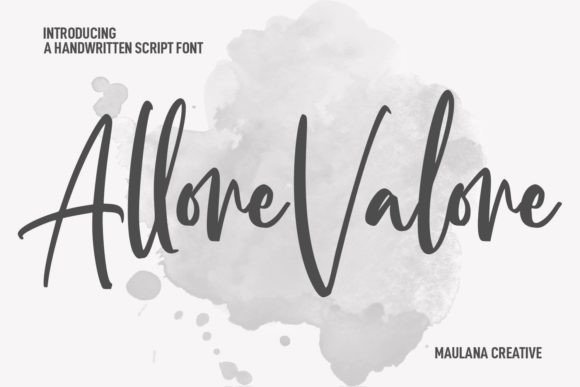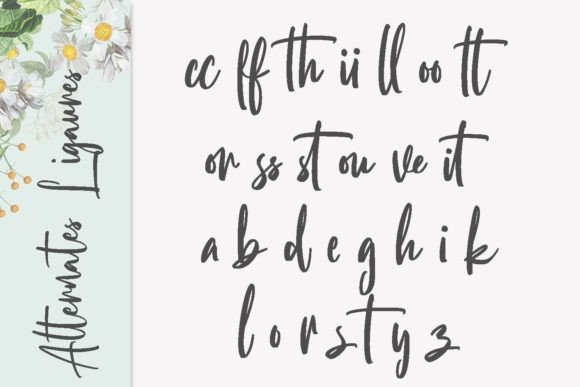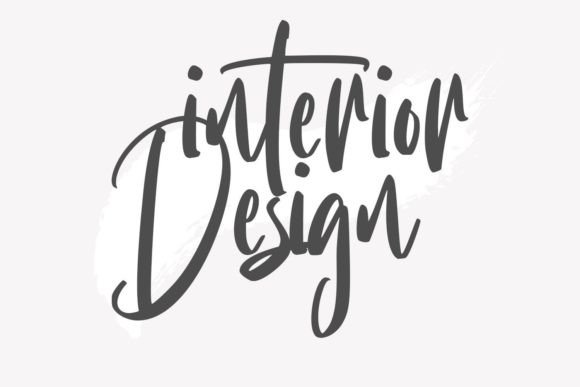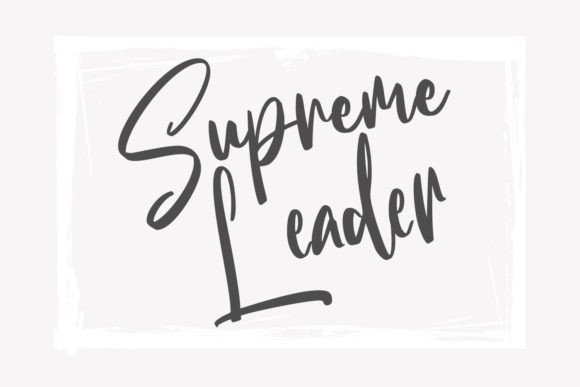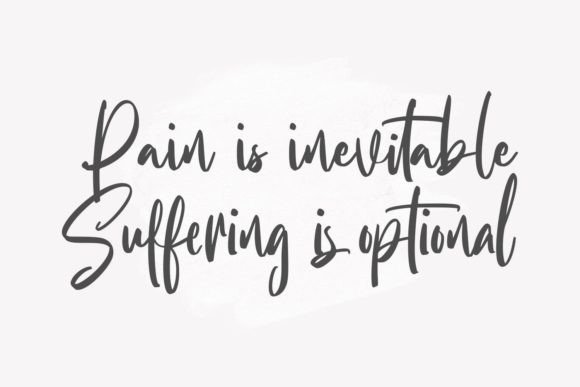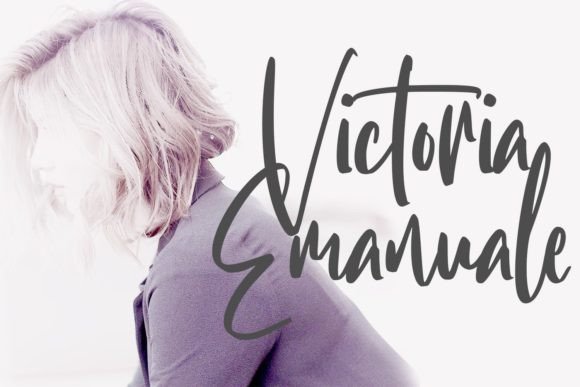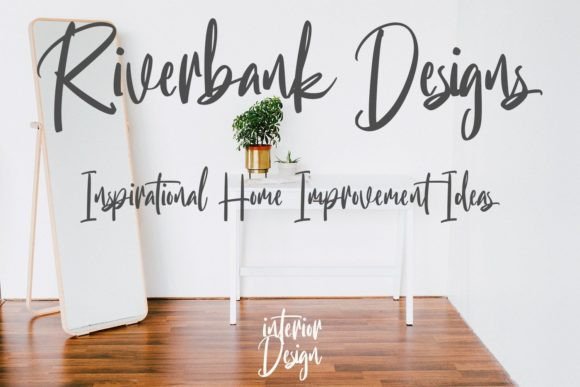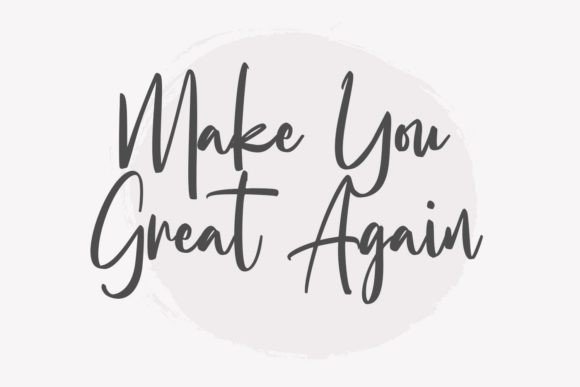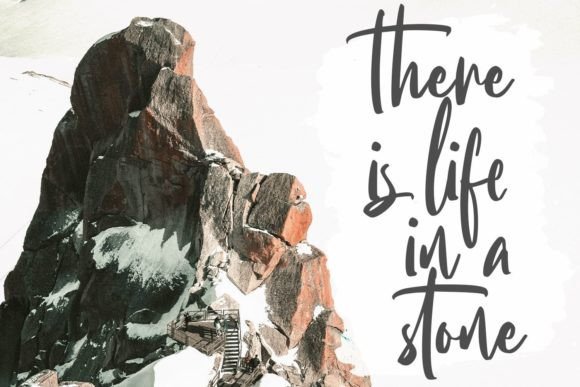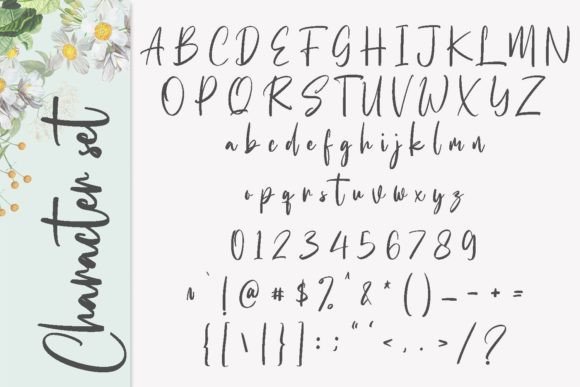
Allore Valore Font
About Allore Valore Font
Allore Valore is not just a font; it’s a fanciful handwritten script that adds a touch of elegance and flair to your creative projects. Let’s explore the distinctive features that make Allore Valore stand out and understand how it can elevate your design endeavors.
At its core, Allore Valore is characterized by a fancy handwritten script with high-contrast strokes, creating a visually striking and dynamic appearance. The font exudes a sense of sophistication and uniqueness, making it an excellent choice for various design applications.
One notable feature of Allore Valore is its high contrast strokes, which contribute to the font’s overall aesthetic appeal. The dynamic interplay between thick and thin strokes adds a level of visual interest and elegance, making it suitable for projects that demand a touch of luxury.
The inclusion of ligatures and alternates in Allore Valore enhances its versatility. These design elements allow for creative flexibility, enabling you to experiment with different letterforms and flourishes. Whether you’re working on a logo design, social media graphics, movie titles, or book covers, Allore Valore provides the tools to make your work visually captivating.
The font’s suitability for various text lengths, from short titles to longer passages, makes it a versatile choice for a range of design applications. Whether you need a headline font with impact or a secondary text font to complement sans or serif typefaces, Allore Valore excels in delivering stunning results.
In conclusion, Allore Valore goes beyond being a font; it’s a design asset that brings fanciness and elegance to your projects. Whether you’re aiming for a luxurious logo, engaging social media posts, or captivating book titles, Allore Valore provides the creative versatility you need to make your work stand out.